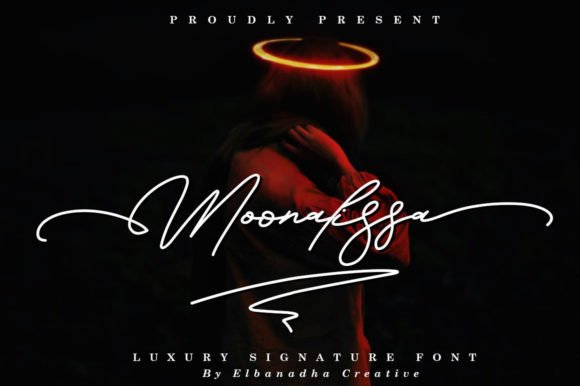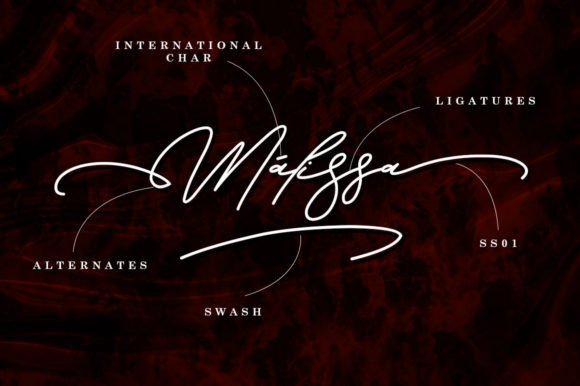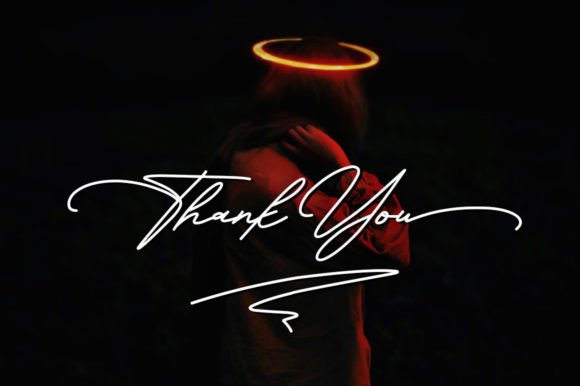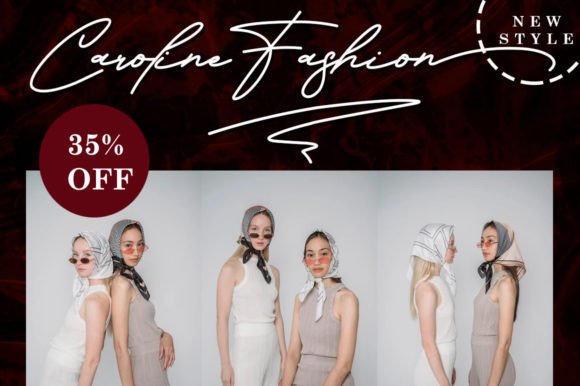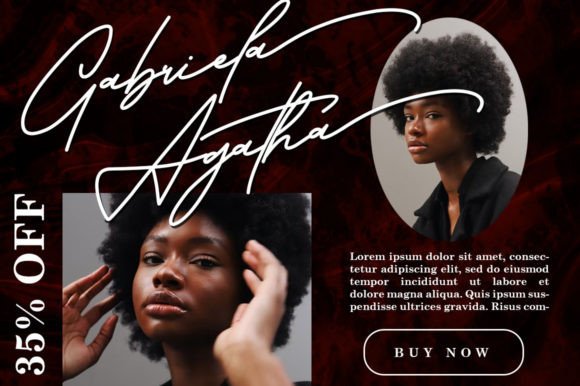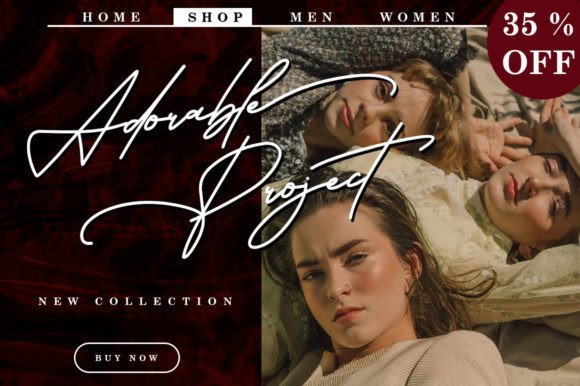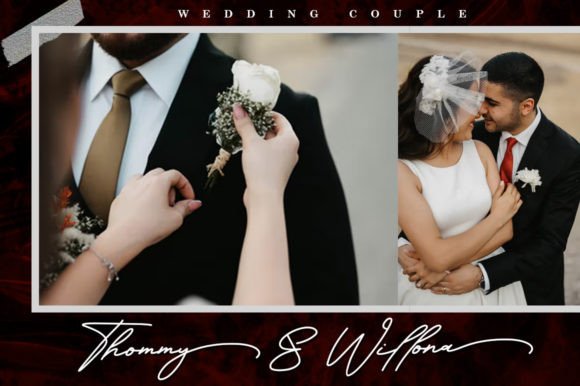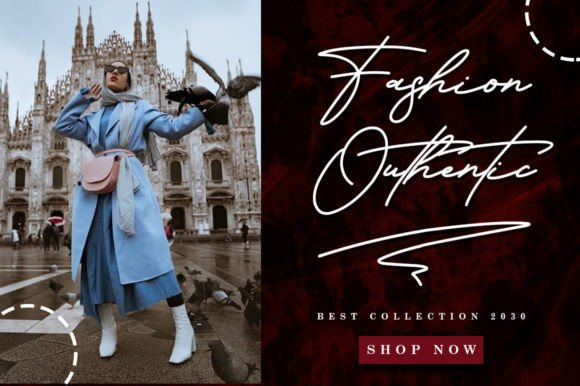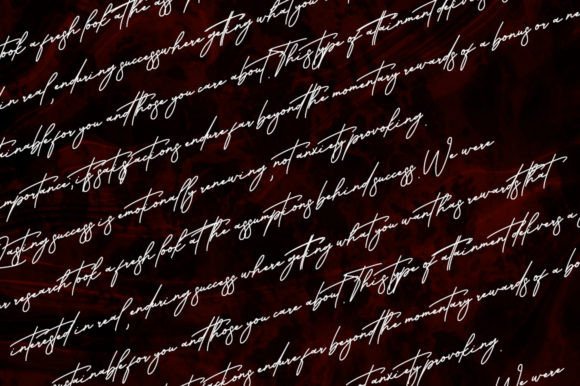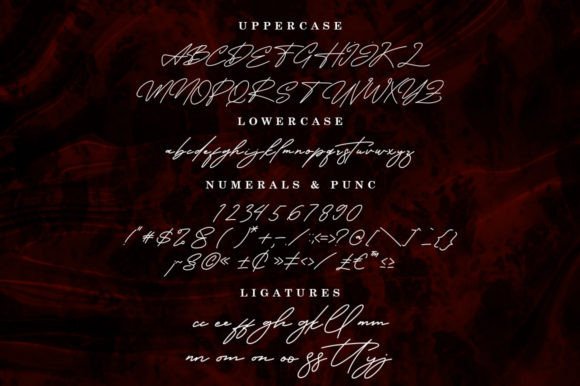
Moonalissa Font
About Moonalissa Font
Introducing Moonalissa, a dazzling script font meticulously crafted with intricate details. This font is a testament to precision and artistry, making it a wonderful asset for your font library. Regardless of the topic or theme, Moonalissa possesses the potential to elevate and enhance any creation.
The neat and detailed design of Moonalissa suggests a high level of sophistication and precision. Its craftsmanship makes it suitable for a wide range of creative applications. Whether you’re working on branding, invitations, posters, or any other design project, Moonalissa stands out as a typeface that can add a touch of elegance and refinement.
Imagine Moonalissa gracing your designs, whether it’s on stylish invitations, sophisticated branding materials, or captivating posters. The font becomes a key element that not only adds a dazzling script but also infuses a sense of sophistication and creativity into your creations.
In summary, Moonalissa is more than just a font; it’s a design asset that brings a dazzling and detailed quality to your projects. Embrace its craftsmanship confidently, and let Moonalissa be the typeface that enhances the visual appeal of your diverse creative endeavors.